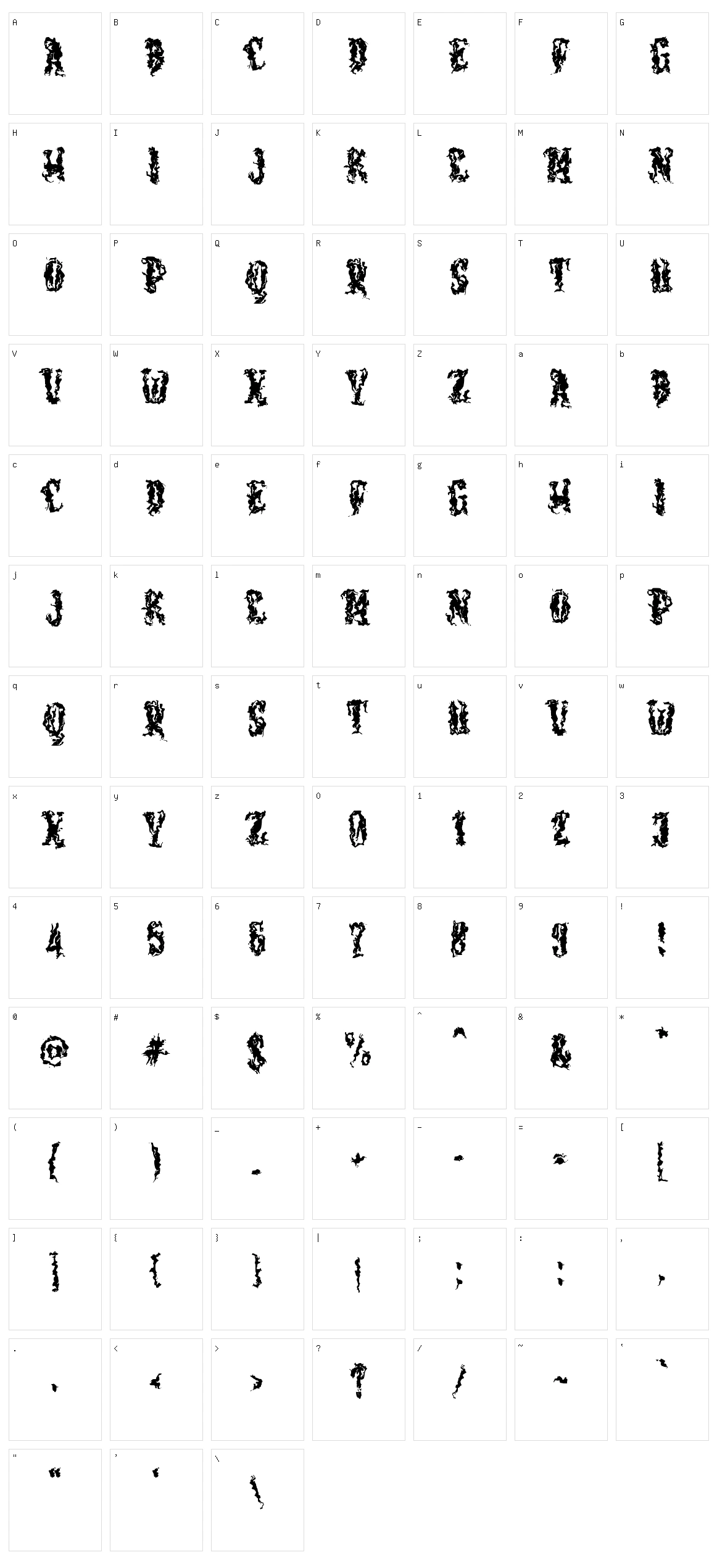
The free font f Facegore is carefully designed by wep, showcasing a thoughtful balance of creativity and usability and falls under the Horror font style. When you download the ZIP file, it contains only 47 KB of font files, making it lightweight and quick to download. Please review the license details below to understand permitted usage and distribution rights. If license information is not available, we recommend using this font for personal projects only or contacting the author directly for commercial usage permissions.